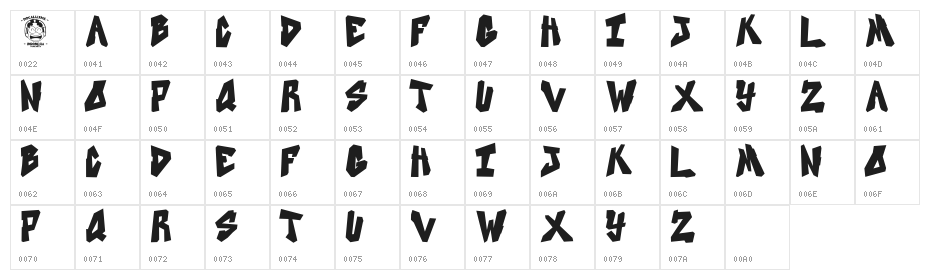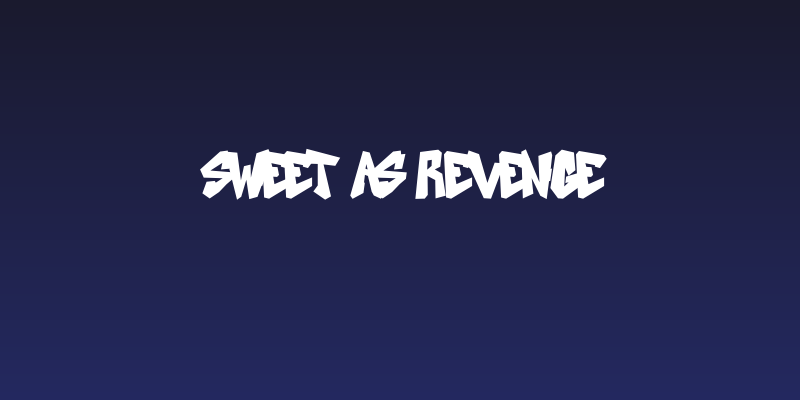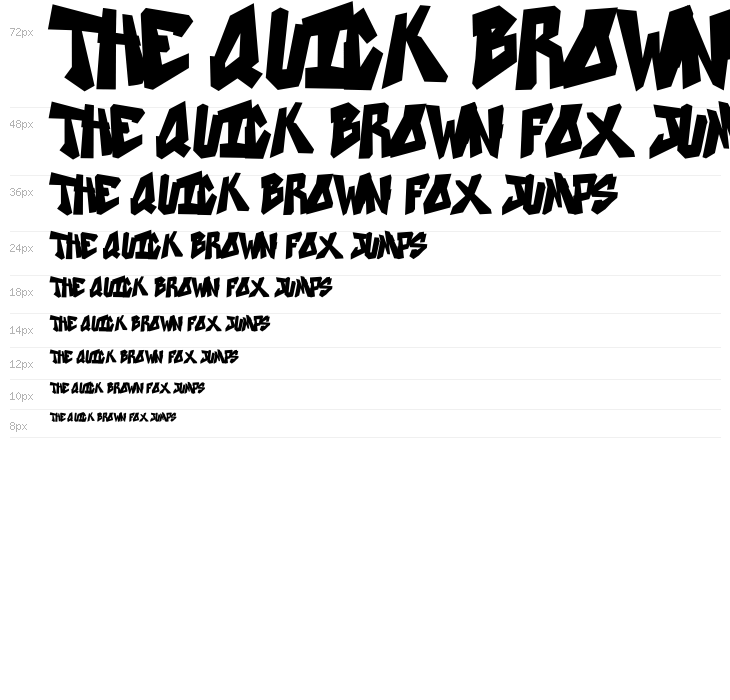
SWEET AS REVENGE Font
SWEET AS REVENGE Description
This font exhibits a bold, edgy style with sharp angles and a graffiti-like appearance. The uppercase letters are characterized by their jagged edges and dynamic forms, giving a sense of movement and energy. The font's design is reminiscent of street art, making it ideal for projects that require a rebellious or urban aesthetic. The characters are tightly spaced, enhancing the compact and impactful look. The overall style is decorative and modern, suitable for eye-catching designs.
| Proposed Projects | Ideal for street art designs, urban-themed posters, music album covers, and edgy branding projects. |